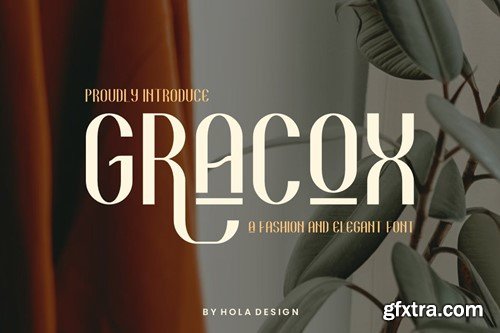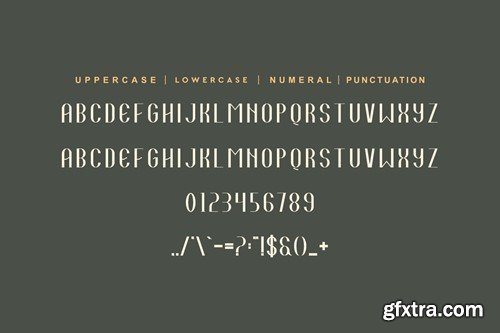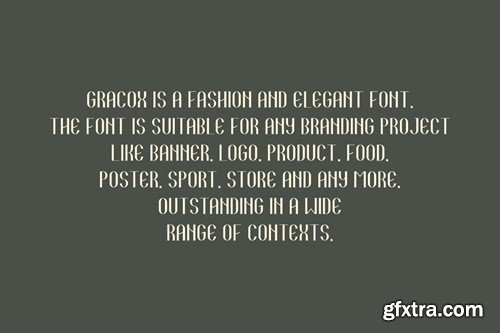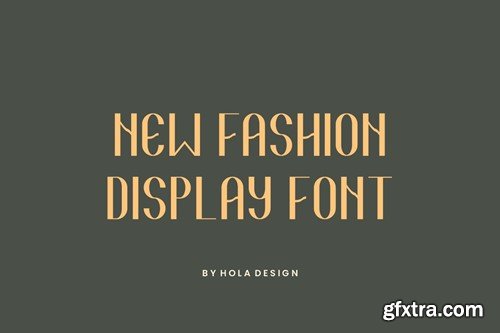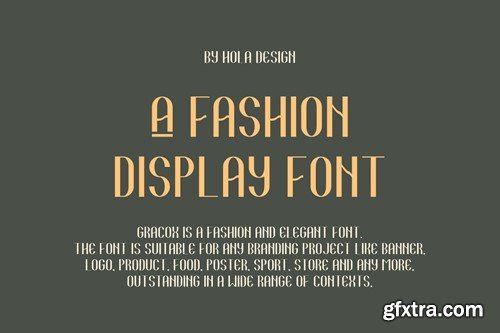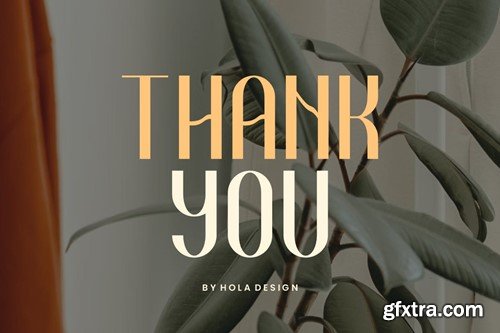
Gracox - Sans Serif & Luxury Font Y5TR47P
Gracox - Sans Serif & Luxury Font
Gracox - Sans Serif & Luxury Font Font is unique . Ready to use for your design like labeling, movie sceen, poster, movie title, gigs, album covers, logos, and much more.